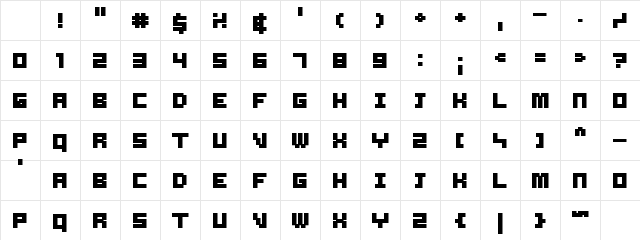
Complete Samson Bold glyph index. Displaying only characters natively supported by Samson Bold font.
Samson is a composed and adaptable typeface that performs quietly and consistently across a wide range of design contexts. Its bold stroke weight gives it real presence on the page.